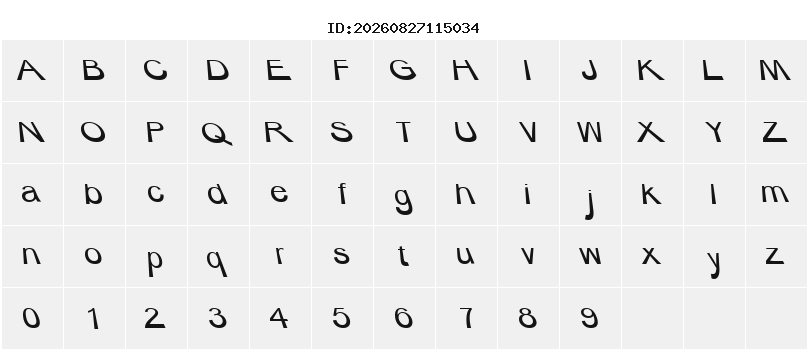
228-CAI978 Preview
• Font Name: 228-CAI978
• Full Font Name: 228-CAI978
• Version: Version 1.00 April 18, 1998, initial release
About 228-CAI978.ttf
228-CAI978.ttf is a modern, elegant sans-serif font designed for ultimate readability and visual harmony. Perfect for branding, headlines, web design, and print materials.